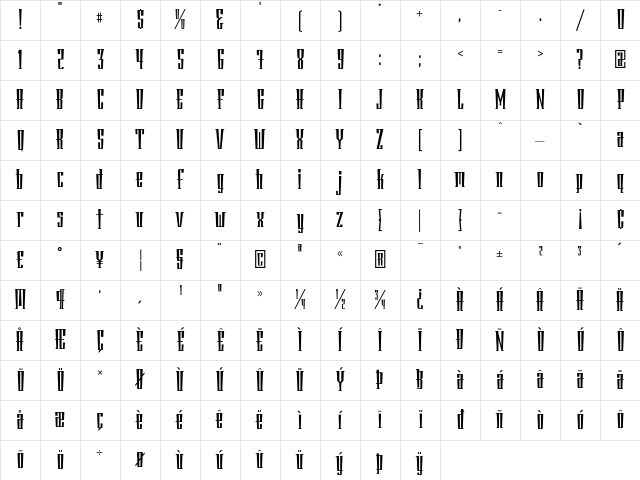
Phalanx Regular
Phalanx Family
Design Context for Phalanx
Phalanx is a composed and adaptable typeface that performs quietly and consistently across a wide range of design contexts.